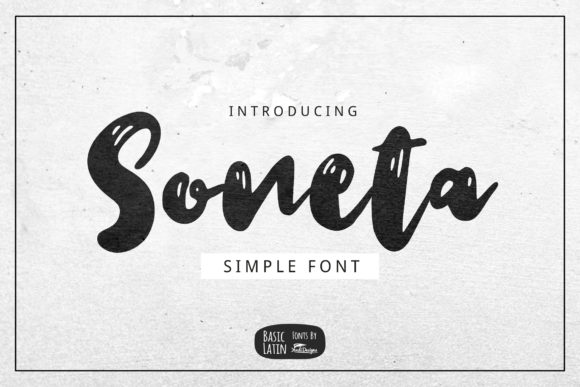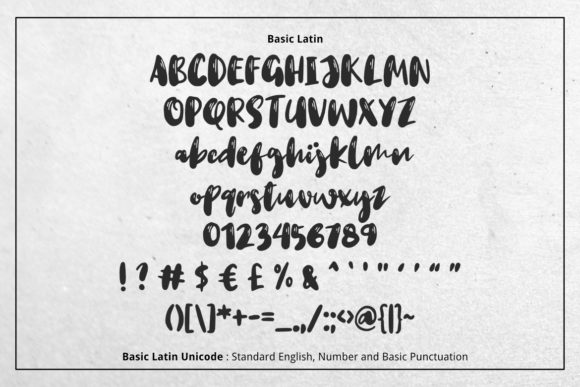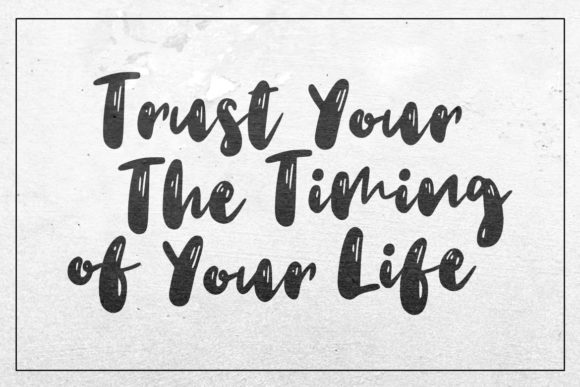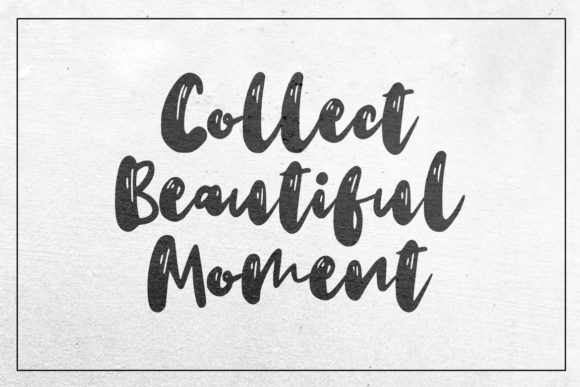
Soneta Font
About Soneta Font
Soneta is a thick lettered and bold handwritten font. This font reads as strong, confident, and dynamic and can add tons of nostalgic character to your designs.